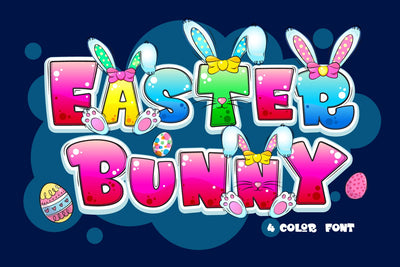
Easter Bunny
Easter Bunny is a fun and chic color font. Easter vibe theme adds it to your favorite easter creations and notices how easily they come to life. Enhance your designs with this unique and playful color font.